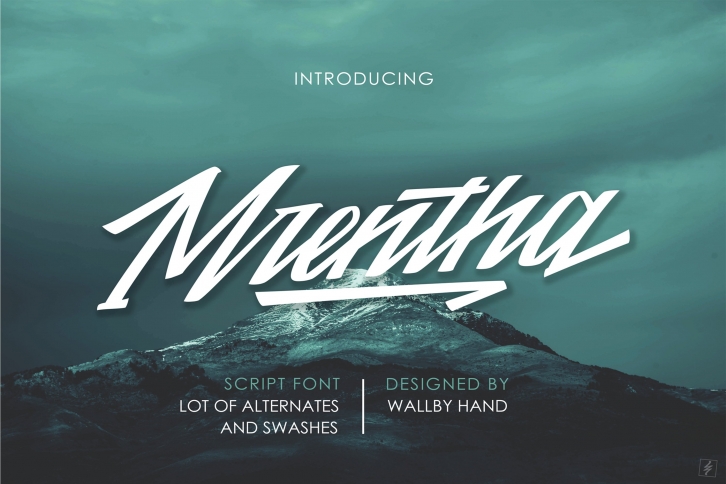
Mrentha is a trendy and unique font with an authentic style. It was designed by Wallbyhand and it's a great choice for creative people who need such a font. It was released on July 8, 2020 and the file size is 4.73 MB. Mrentha will add an organic vibe to any design idea!